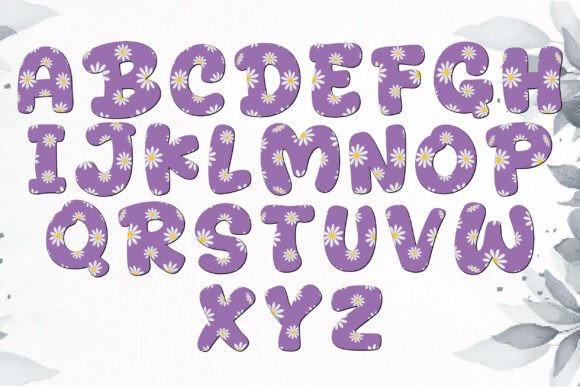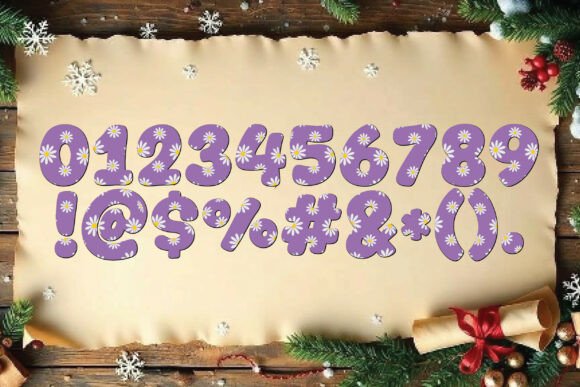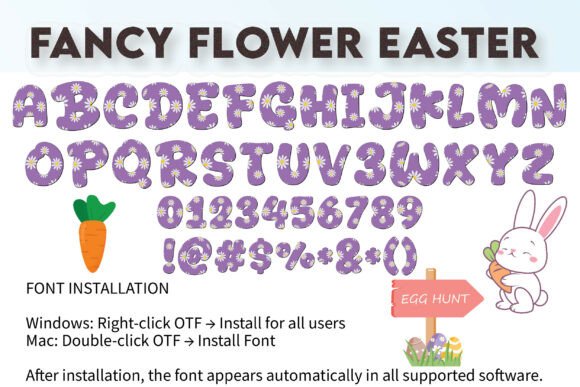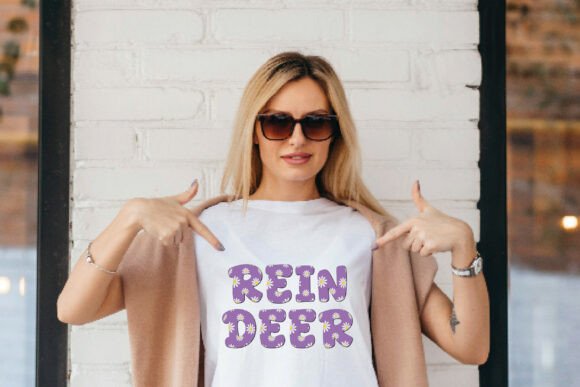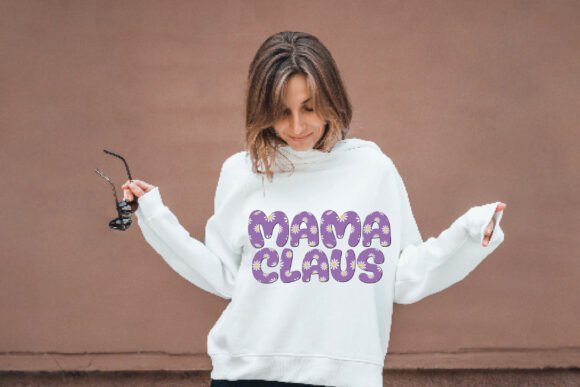
Welcome Spring with Fancy Flower Easter Font
As the snow melts and flowers begin to bloom, Easter is just around the corner. Celebrate the season with a charming and soft decorative floral alphabet – the Fancy Flower Easter Font. This delightful font combines pretty flower details with cheerful Easter vibes, making it perfect for creating bright, happy, and seasonal designs.
The Fancy Flower Easter Font is ideal for a wide range of design projects, including:
- Easter cards and invitations: Create beautiful and personalized cards to send to loved ones.
- Planners and stickers: Add a touch of spring to your planners and stickers with this charming font.
- Mugs and t-shirts: Design unique and colorful mugs and t-shirts for Easter gifts or personal use.
- Scrapbooking: Add a floral touch to your scrapbooking projects with this beautiful font.
- Classroom activities: Create engaging and fun learning materials for your students.
- Party decorations: Design colorful and festive party decorations, such as banners and garlands.
- Social media graphics: Create eye-catching social media graphics to celebrate the Easter season.
Font Preview and Display
Tips for Using the Fancy Flower Easter Font
Here are some tips for using the Fancy Flower Easter Font:
- Experiment with different colors and combinations to create unique designs.
- Use the font to add a personal touch to your Easter cards and invitations.
- Mix and match the font with other design elements, such as images and shapes, to create visually appealing designs.
The Fancy Flower Easter Font is a beautiful and charming decorative floral alphabet that is perfect for celebrating the Easter season. With its compatibility with popular design software and wide range of design possibilities, this font is a must-have for designers and crafters. So why wait? Download the Fancy Flower Easter Font today and start creating your own unique and festive designs!